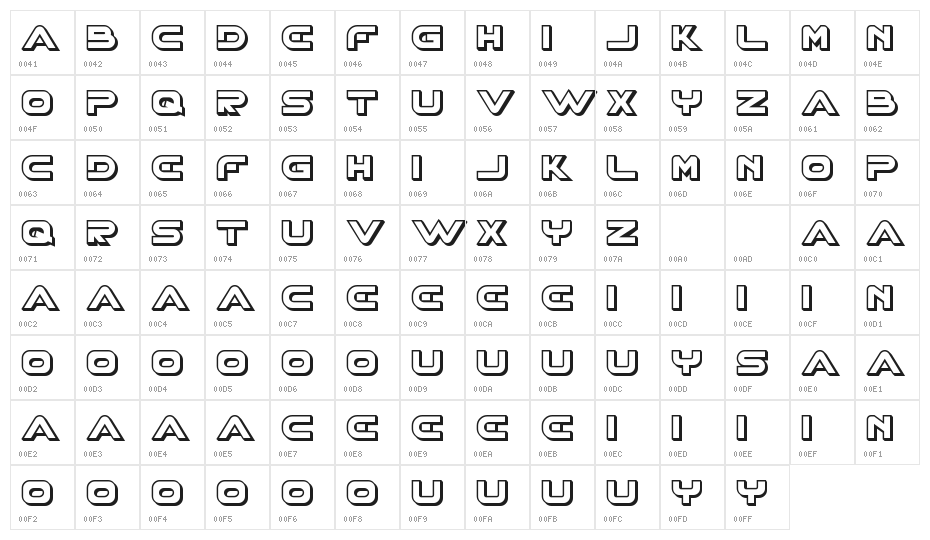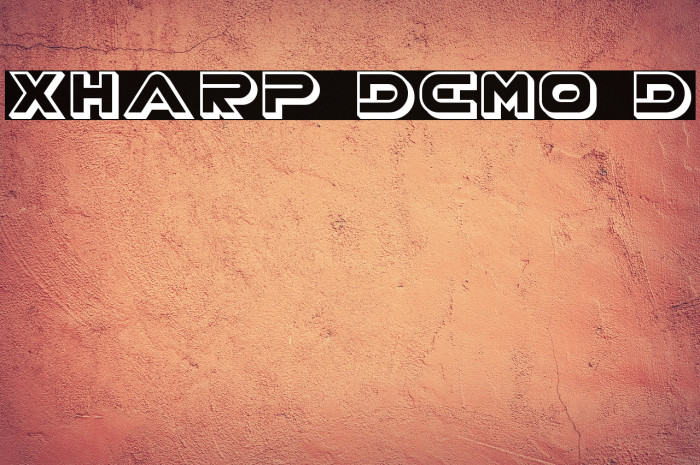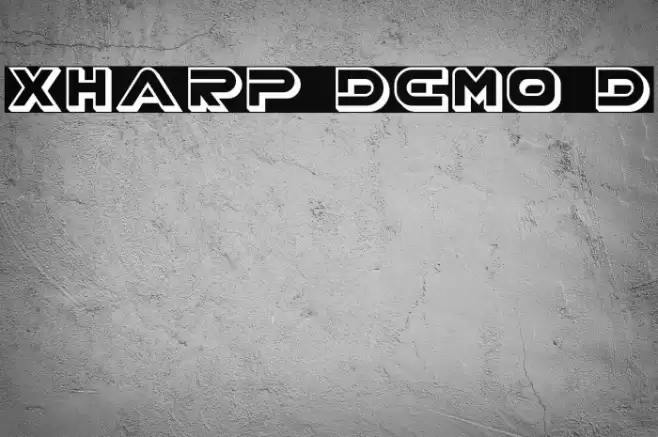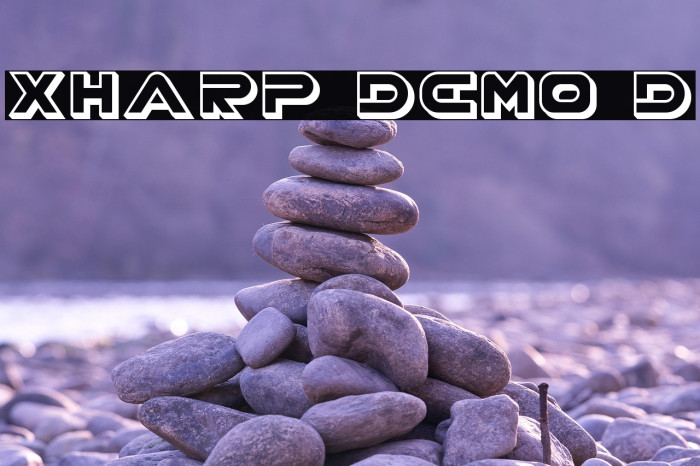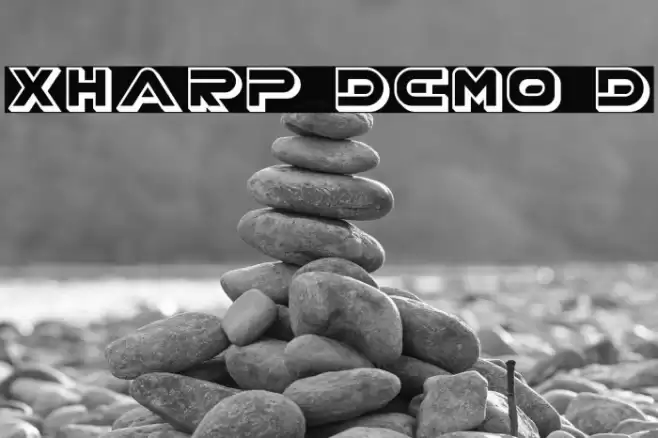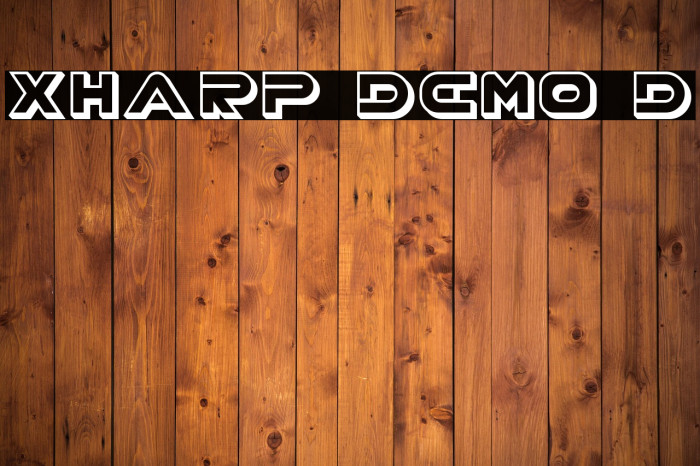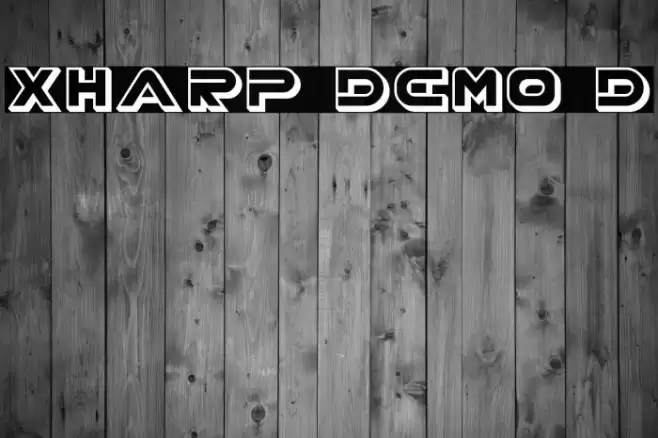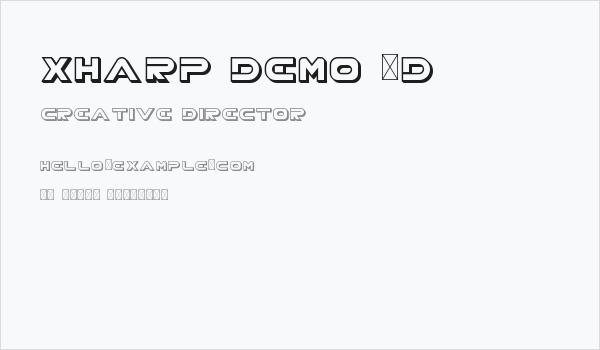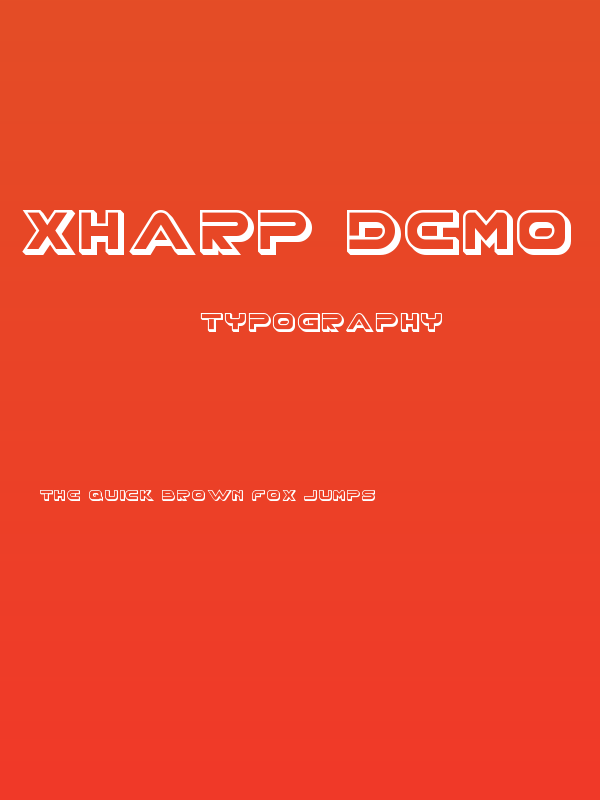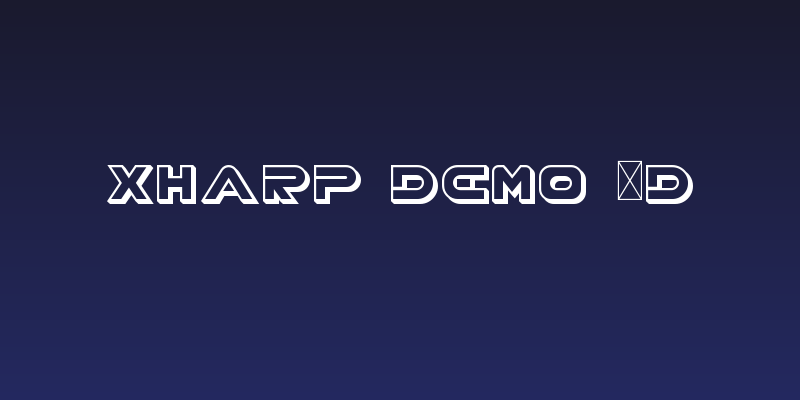
XHARP Demo 3D Font
XHARP Demo 3D Description
This font features a bold, geometric design with a 3D effect that gives it a futuristic and dynamic appearance. The characters are constructed with thick lines and sharp angles, creating a sense of depth and dimension. The uppercase letters are uniform in height, and the overall style is consistent across the alphabet. The font's design is both eye-catching and modern, making it suitable for projects that require a strong visual impact. The spacing between characters is normal, allowing for readability while maintaining the font's distinctive style.
| Proposed Projects | Ideal for use in technology branding, video game titles, futuristic posters, and sci-fi themed designs. |